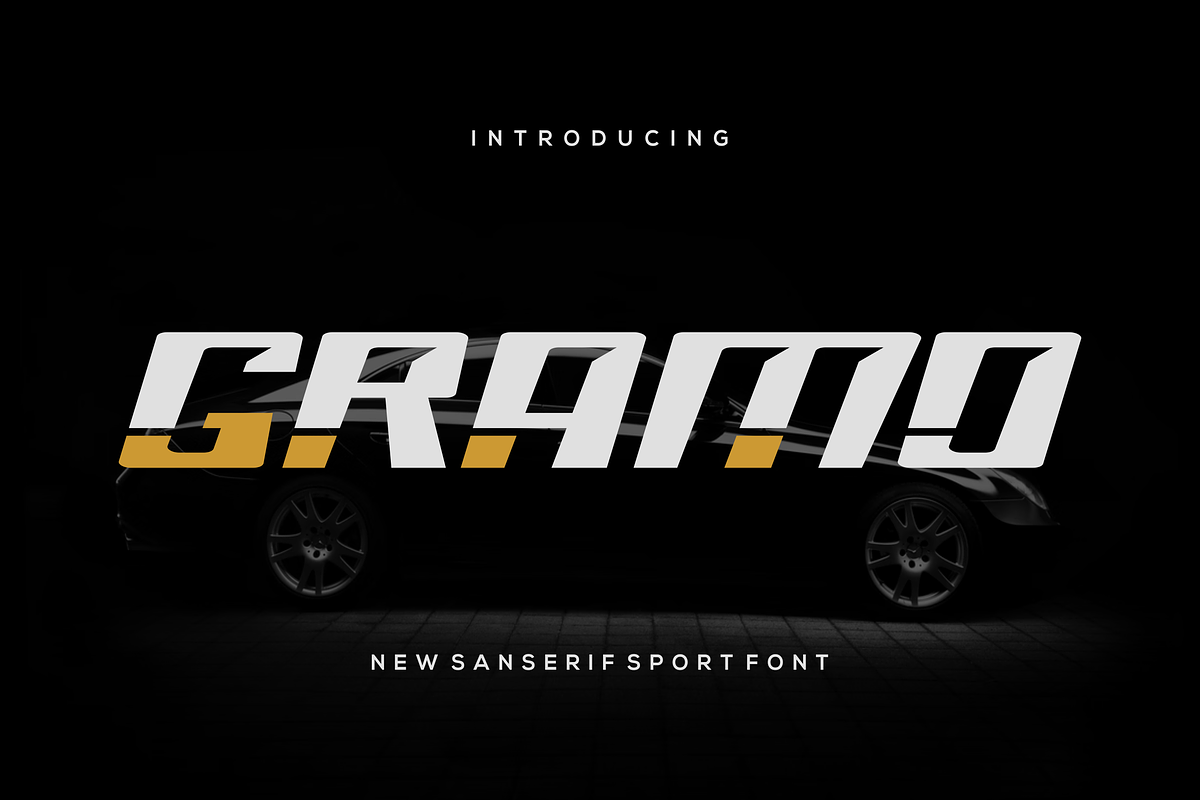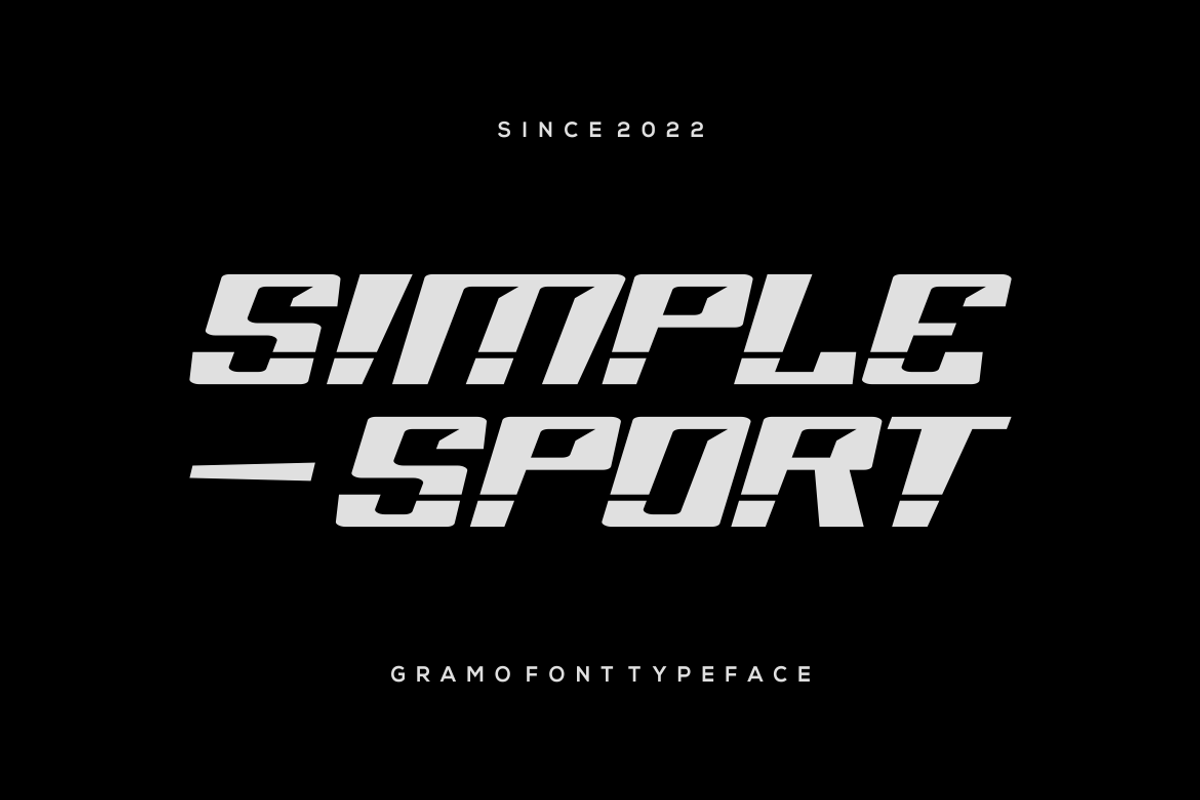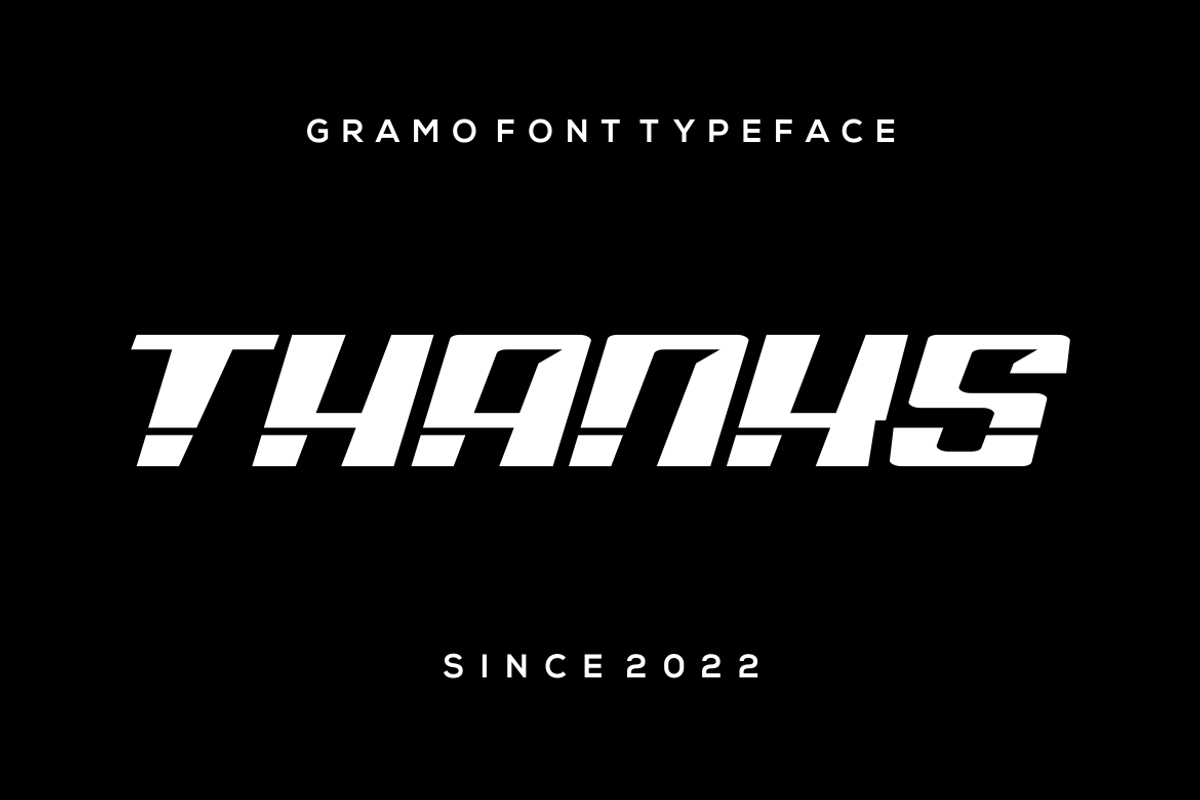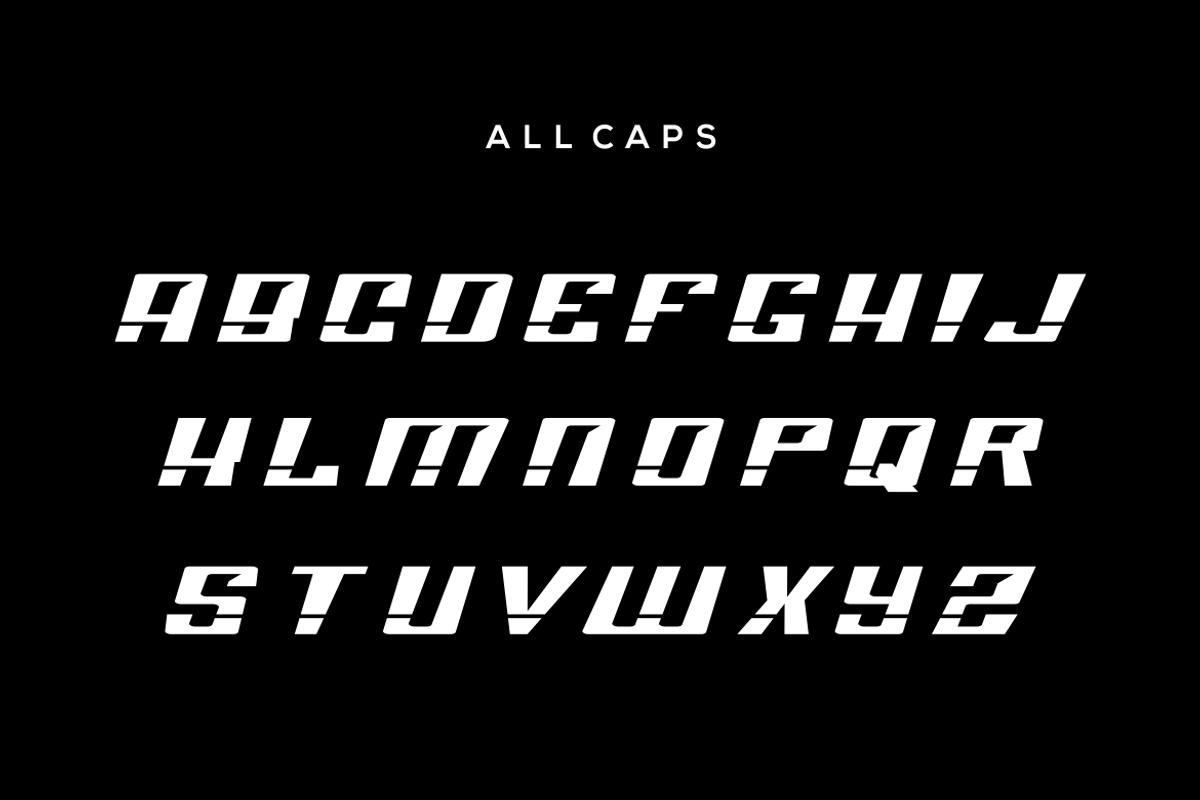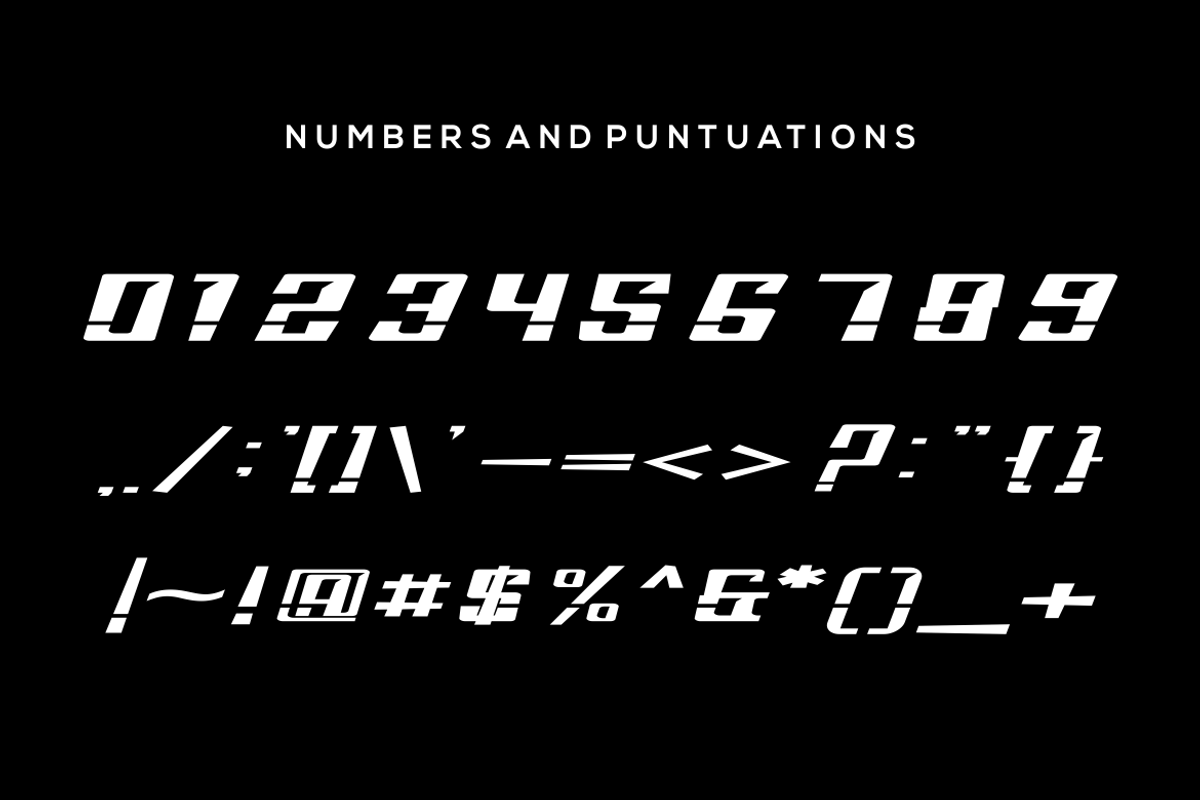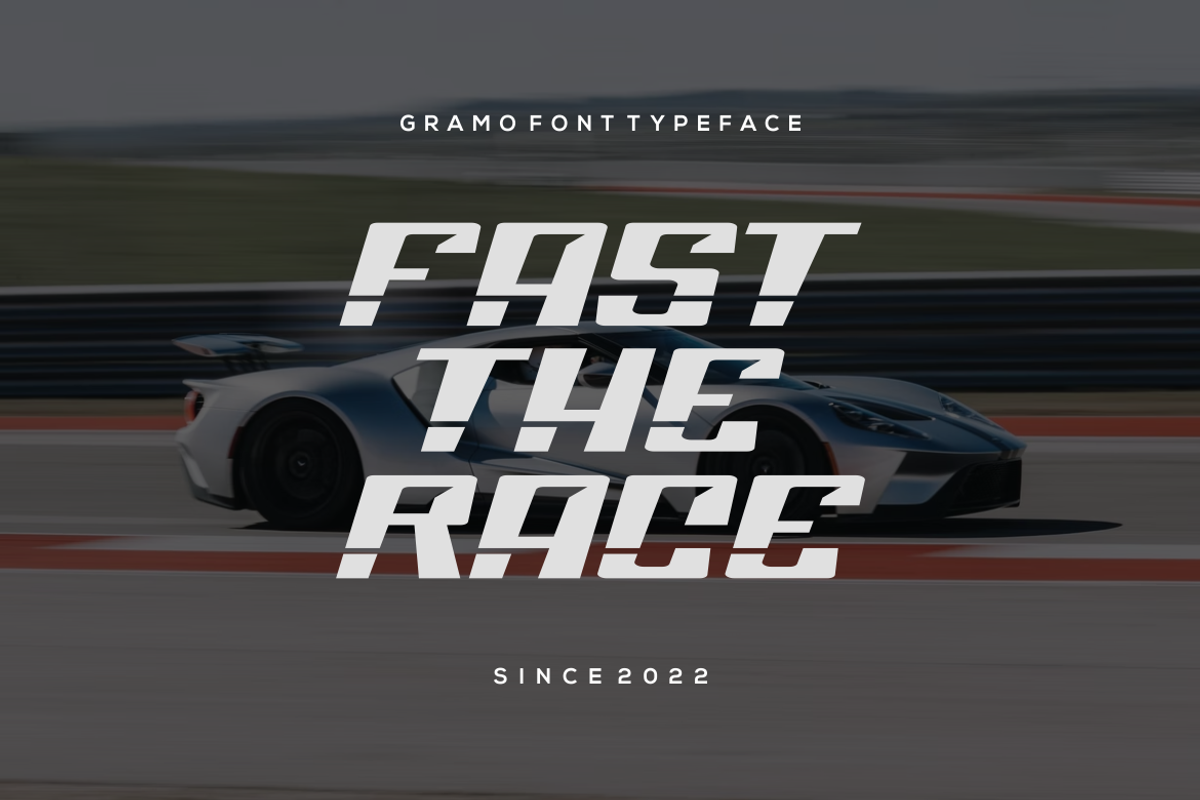
Gramo Font
Introducing our new product Gramo Font - Modern Font
Gramo Font - Modern Font is a bold and authentic display font. The font is suitable for any branding project like logo, esport, and many more. outstanding in a wide range of contexts.